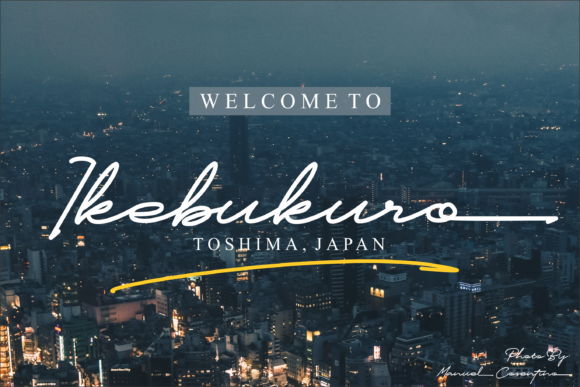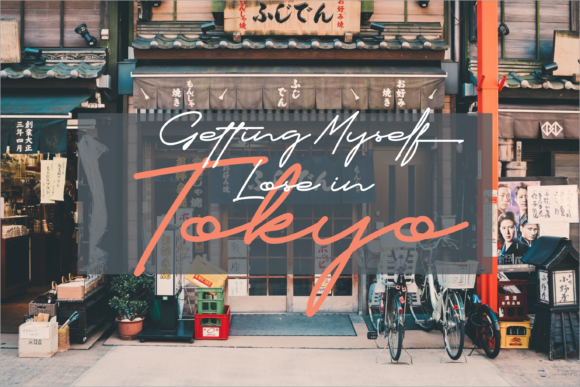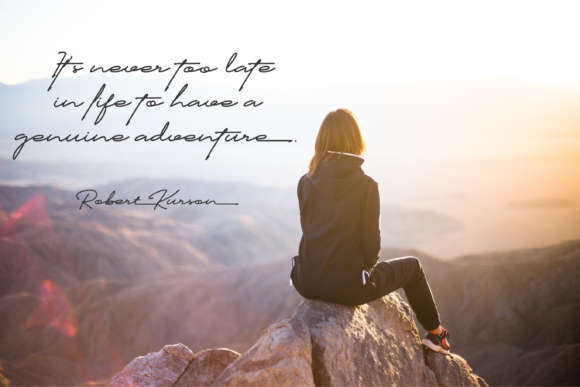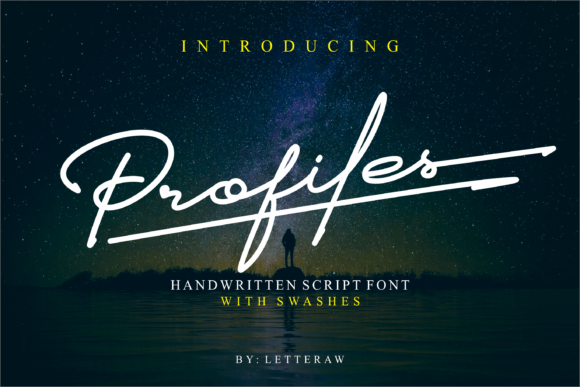
Profiles Font
This Profiles Font is perfect for personal branding portfolios, professional resume designs, corporate biography layouts, executive profile materials, social media personal brands, networking platform interfaces, headhunting agency communications, professional directory designs, personal website headers, and individual identity applications.
What makes this Profiles Font exciting is its professional versatility that captures the distinctive character and personal excellence of individual identity and professional representation. The font features balanced letterforms with personal characteristics that convey professional competence, individual distinction, and authentic personality. Its profile character and identity-inspired design make it ideal for brands seeking to communicate personal excellence, professional identity, and individual authenticity in career and networking markets.
The Profiles Font family includes light, regular, medium, and bold weights with professional alternates, personal variants, and distinctive flourishes. This comprehensive identity font family provides designers with versatile typographic tools to create personal compositions while maintaining the professional character essential for career brands and individual identity communications.
Professional services and networking platforms consistently choose Profiles Font Free Download for projects requiring authentic personal appeal and professional credibility. This font's distinctive individual character perfectly captures the professional excellence and personal authenticity that resonate with audiences who appreciate career development, personal branding, and brands that embody professional distinction and individual success.
The distinctive construction of Profiles Font showcases professionally designed letterforms with personal proportions that ensure exceptional versatility across all career applications. Its individual appearance and professional character create memorable impressions while maintaining the readability necessary for effective personal communication and professional materials.
Professional designers appreciate how Profiles Font brings immediate personal authenticity and professional distinction to brand communications. The font's individual nature allows organizations to communicate career excellence and personal identity while maintaining the professional quality necessary for effective positioning in career development and networking markets.
The authentic appeal of Profiles Font makes it particularly effective for brands emphasizing personal development, professional identity, and individual excellence. Its distinctive character resonates strongly with audiences who appreciate career advancement, personal branding, and brands that represent the unique value and professional distinction of individual achievement.
Whether developing platforms for professional networking or creating materials for career development services, Profiles Font Free Download provides the distinctive typographic foundation that personal brands need to communicate their professional excellence, individual authenticity, and the personal distinction that defines successful career development and professional identity achievement.